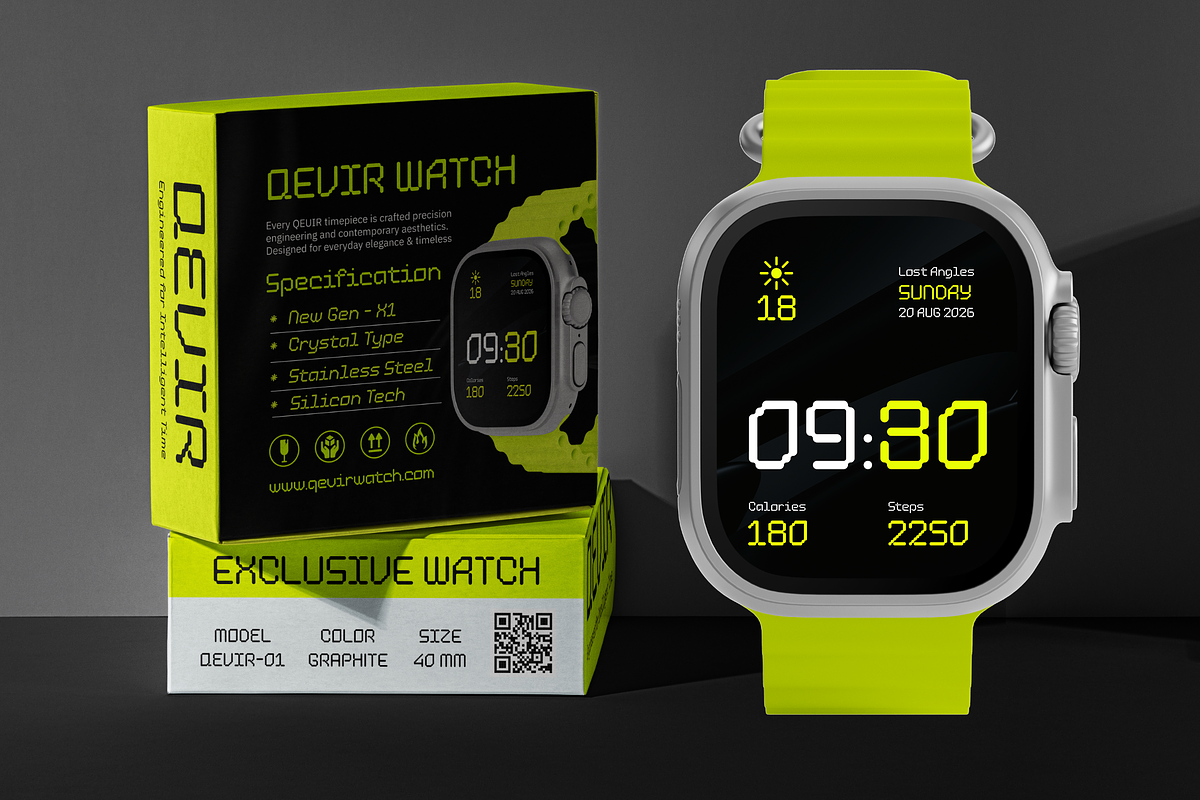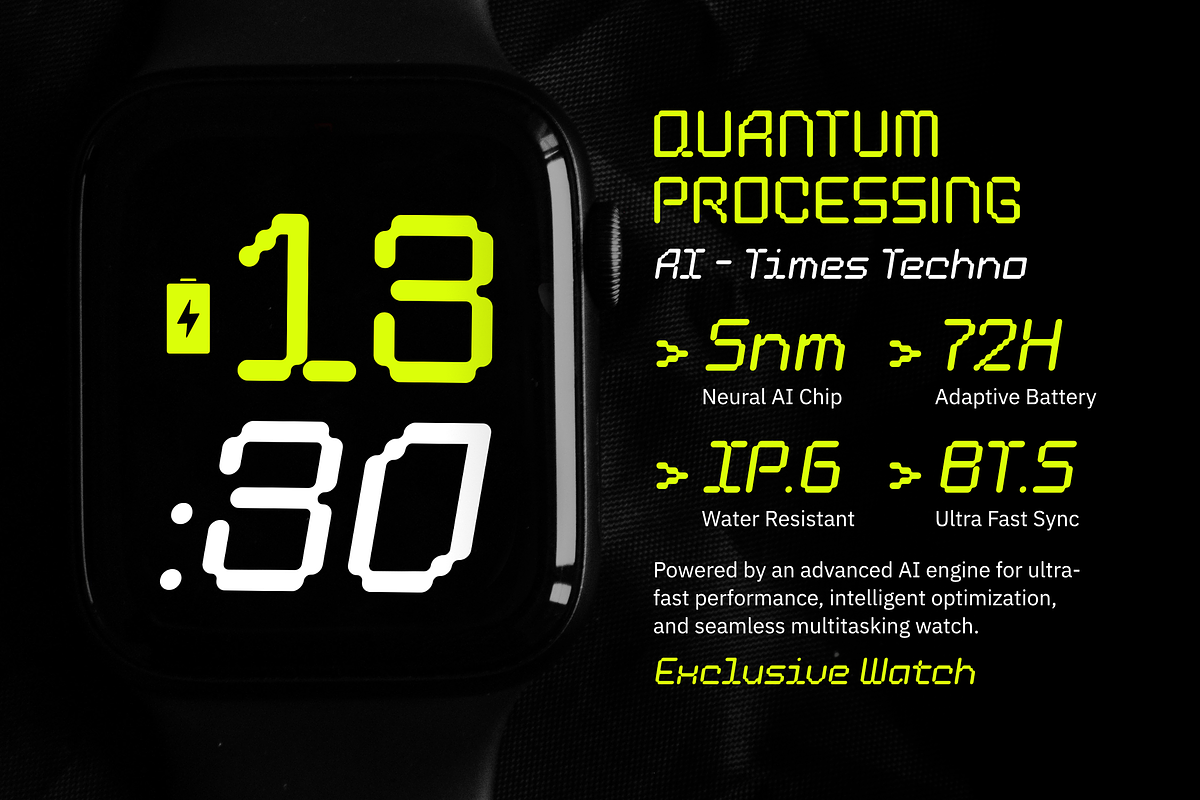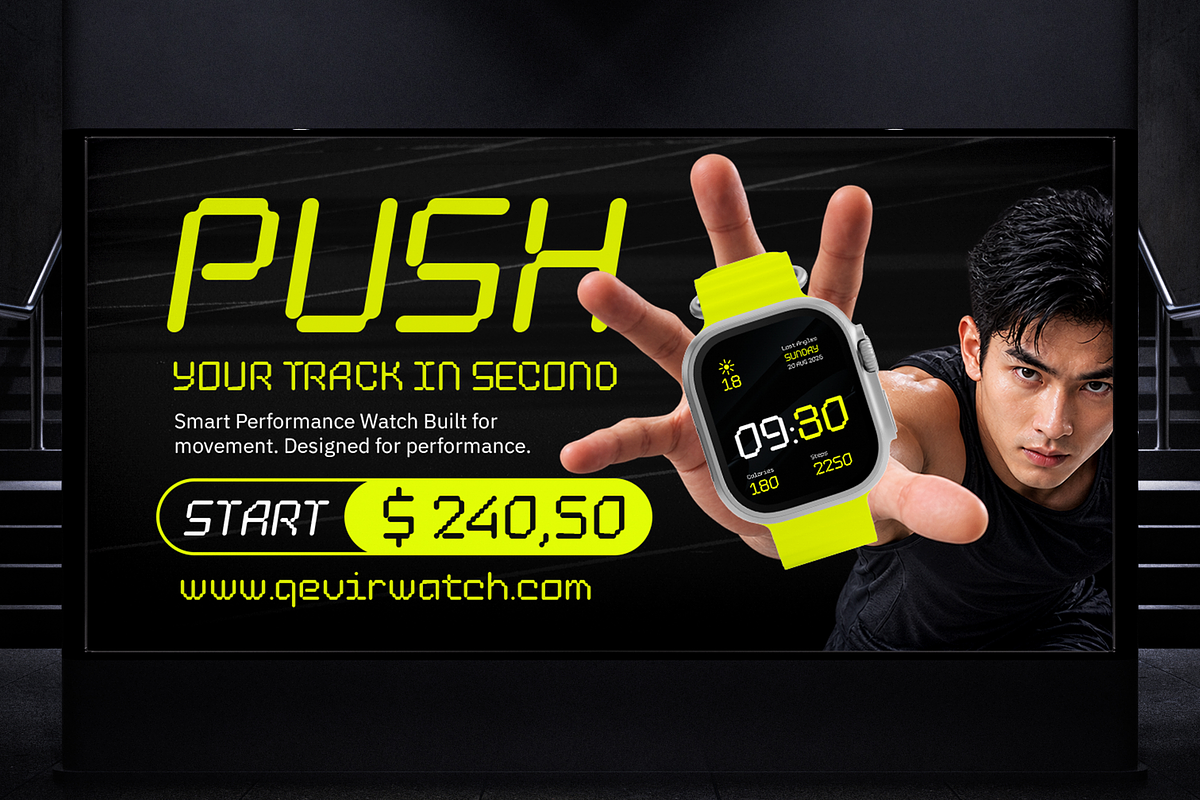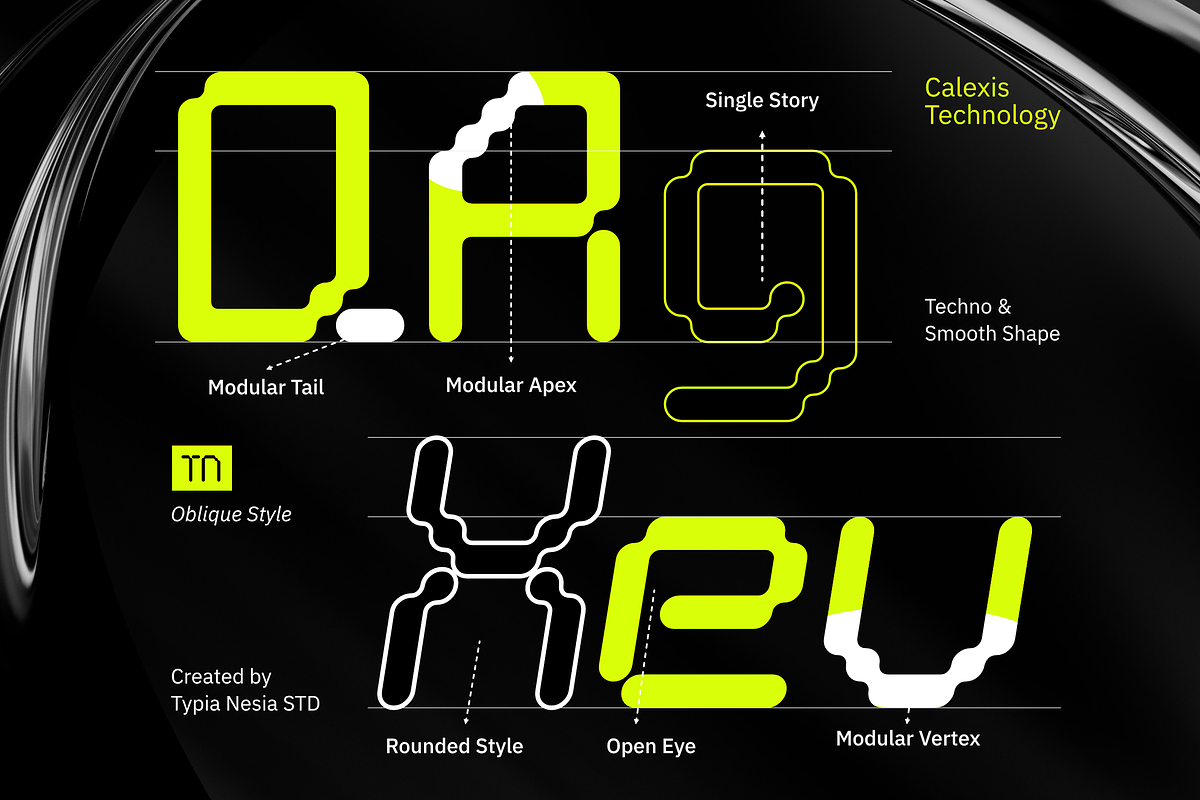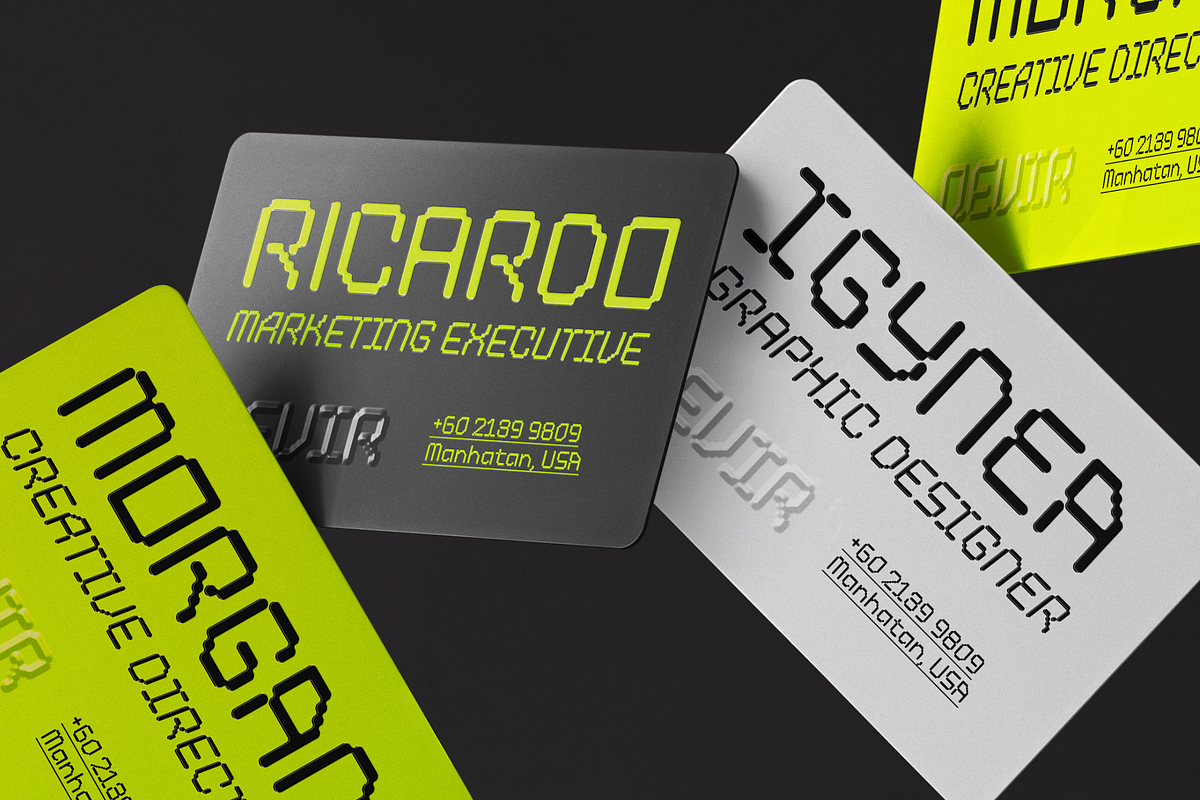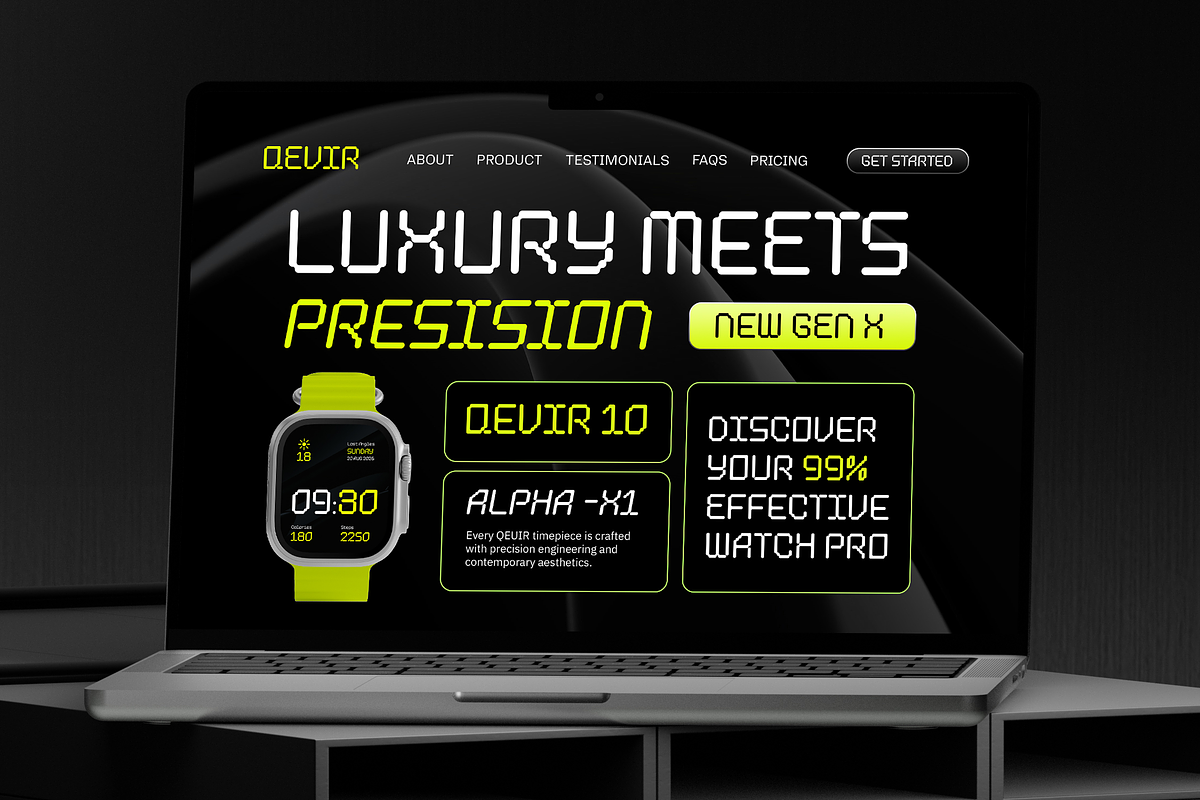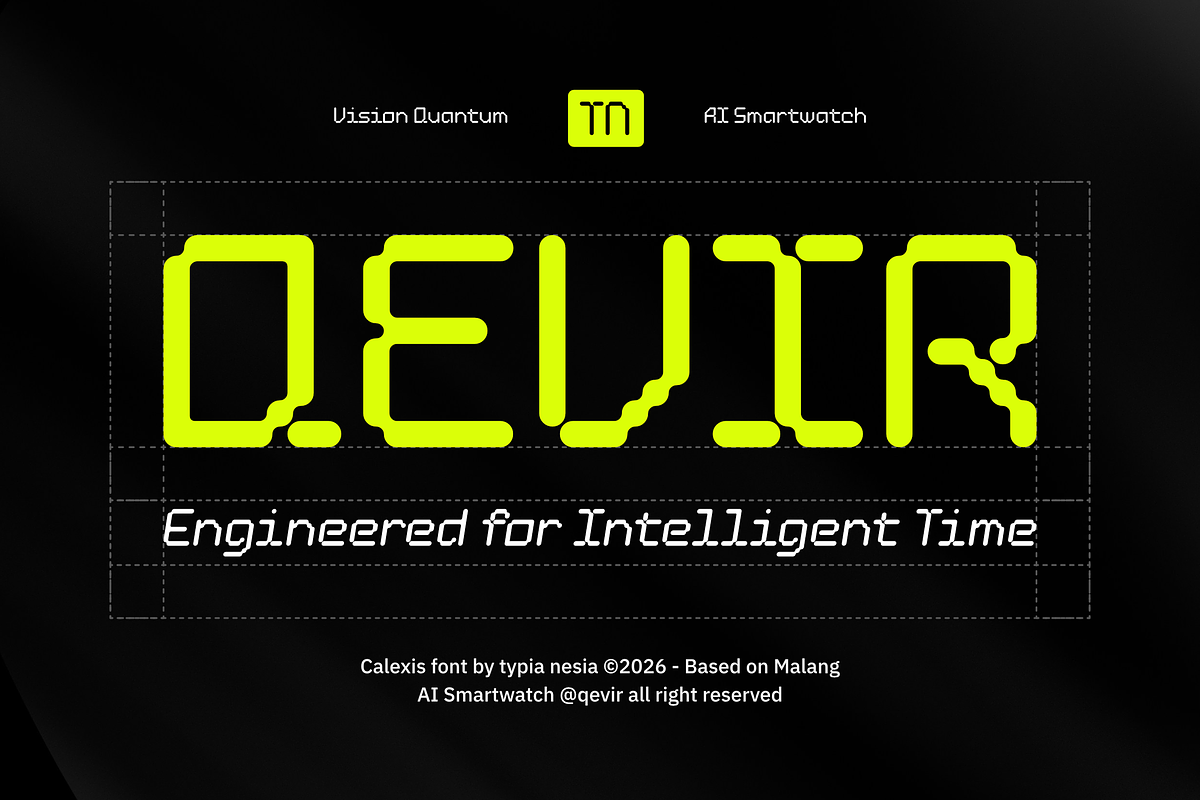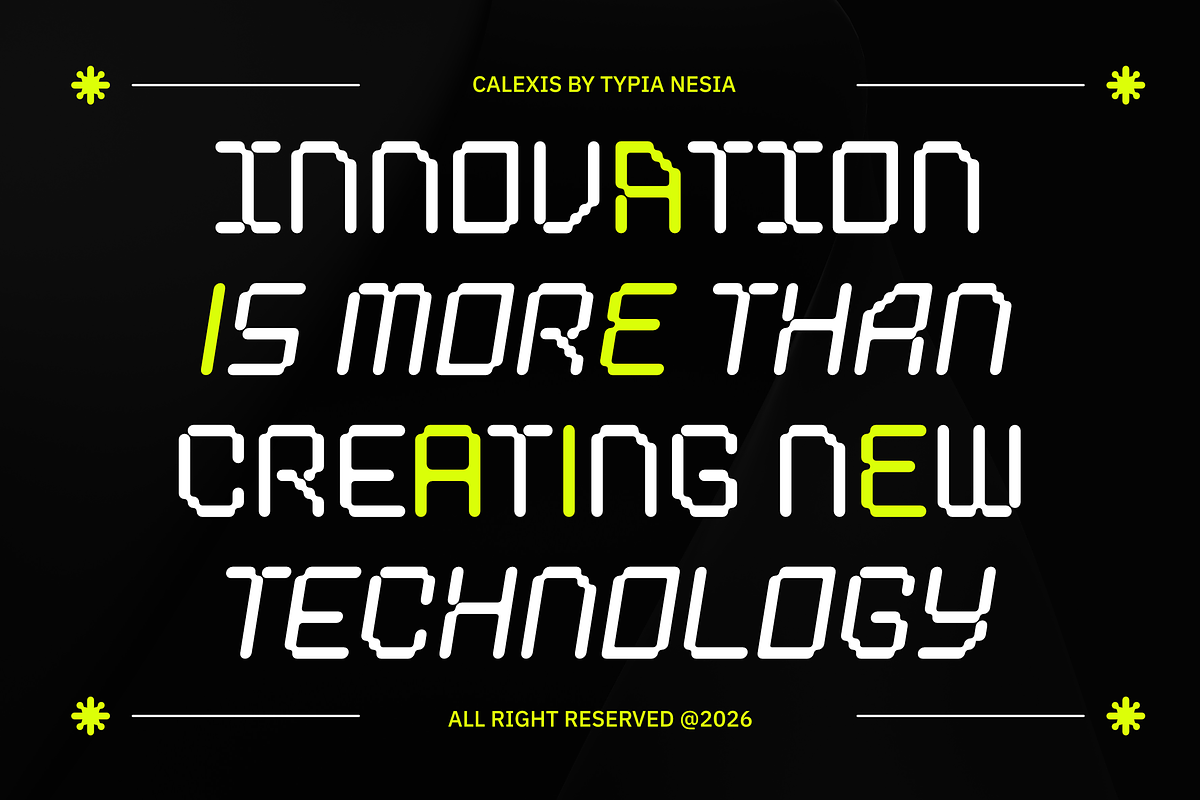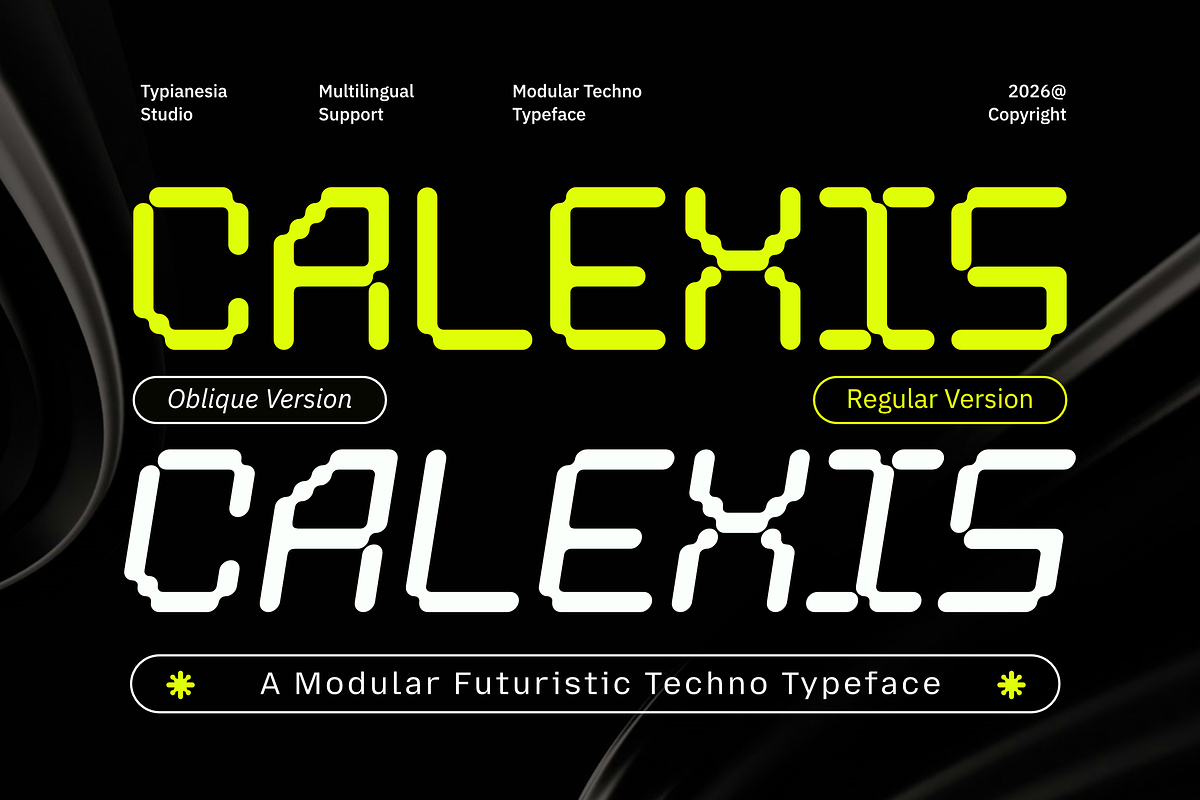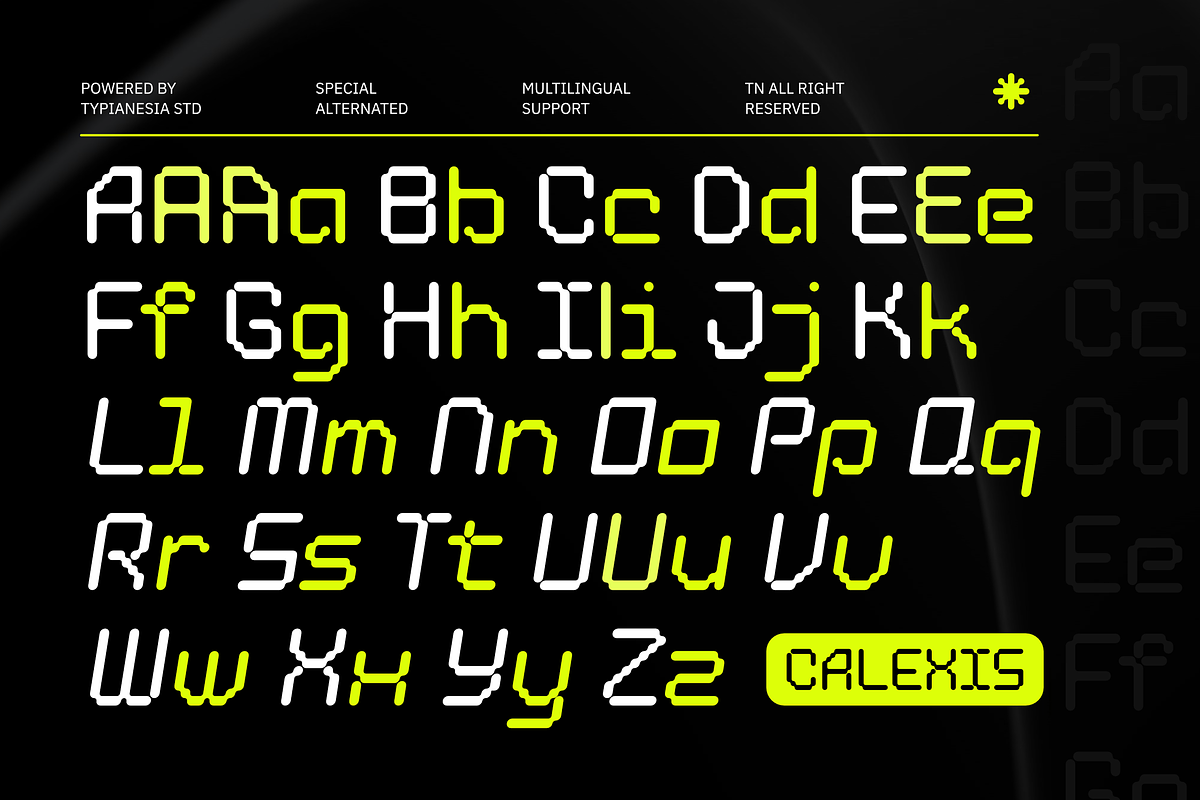
Calexis - Modular Rounded Pixel Font
Calexis - Futuristic Techno Display Font with Rounded Modular Style
Calexis is a futuristic techno display font featuring rounded modular letterforms, geometric construction, and clean digital aesthetics. Designed to create bold, innovative visual identities, it delivers a sleek high-tech appearance that stands out across technology, gaming, and futuristic branding projects.
Perfect for esports logos, gaming titles, software branding, startup identities, UI interfaces, mobile apps, sci-fi movie posters, packaging, product launches, and modern editorial headlines. Bring a clean cyber-futuristic edge to your next creative project with Calexis—where modern technology meets bold typography.